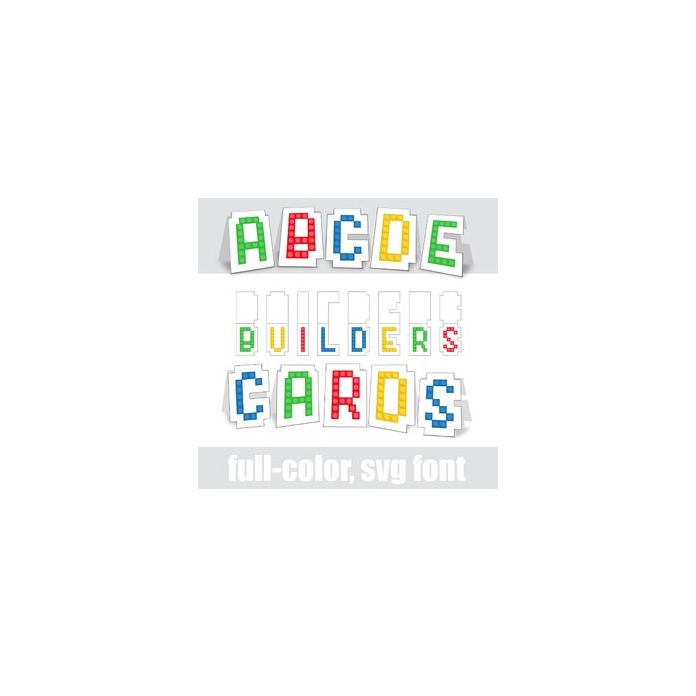
This full-color font features letters made of building blocks in primary colors, outlined in white card shapes. Simply print and fold in half for a fun folding card font.
There is an alt case w/ additional colors you can access through your system or Silhouette's glyph map.